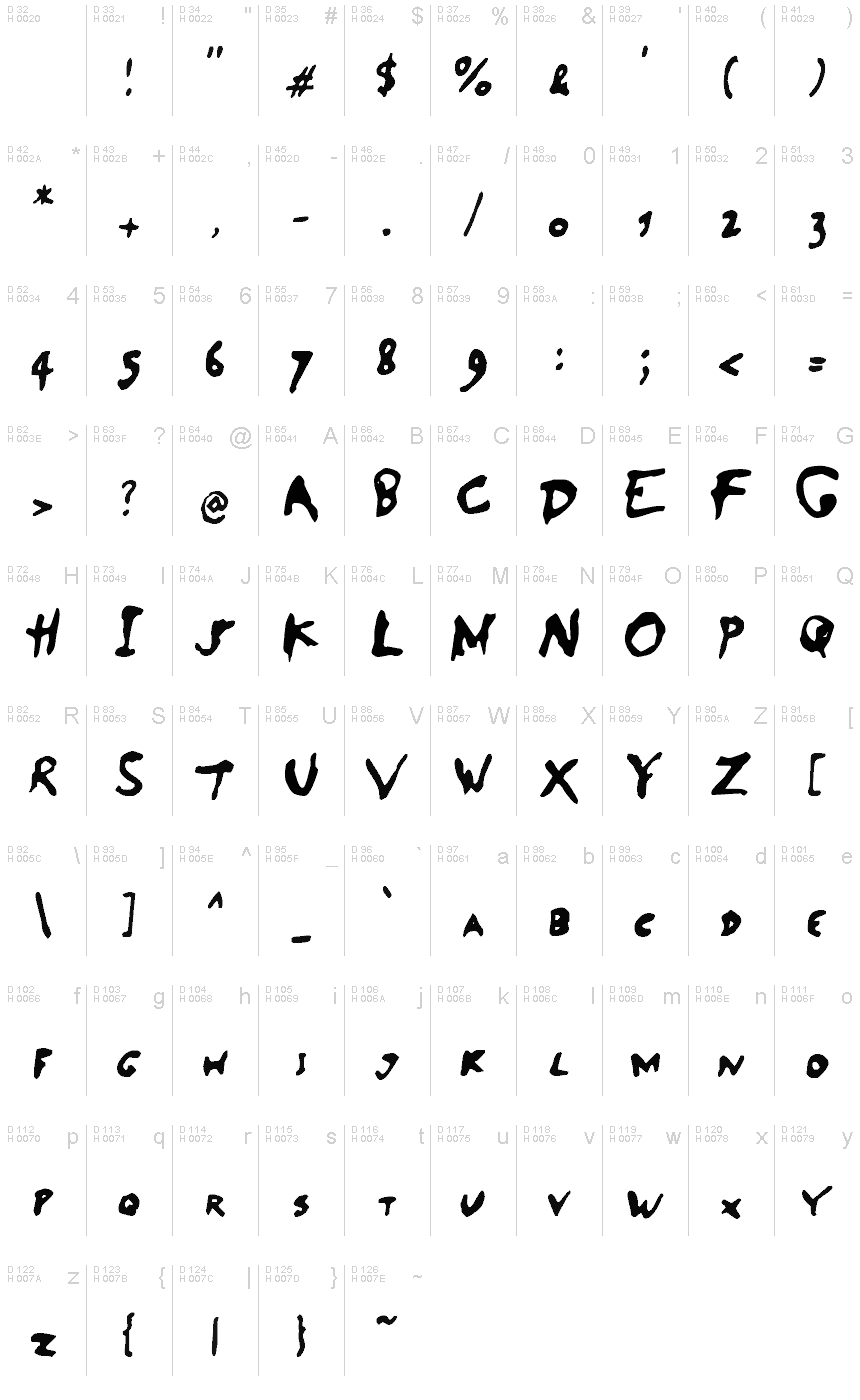
SaladeDeFruitsPomme
Salade de Fruits Pomme emerges as a captivating handwritten font that exudes a bold yet whimsical charm. Crafted by the designer uZiMweB, this typeface presents an aesthetic that is both playful and assertive, making it an ideal choice for design projects aiming to convey personality and warmth.
The bold strokes of Salade de Fruits Pomme are reminiscent of confident brushwork, hinting at the casual artistry of a quick, impulsive scribble while maintaining legible form. Its irregularities and human touch offer a refreshing break from the uniformity of digital fonts, infusing designs with an organic sensibility.
Perfect for creative endeavors that require a personal touch, such as invitation cards, product packaging or quirky advertising campaigns, Salade de Fruits Pomme is versatile in its application. Its robust yet friendly appearance promises to capture attention and give projects a distinctive voice that resonates with audiences seeking authenticity and character in typography.